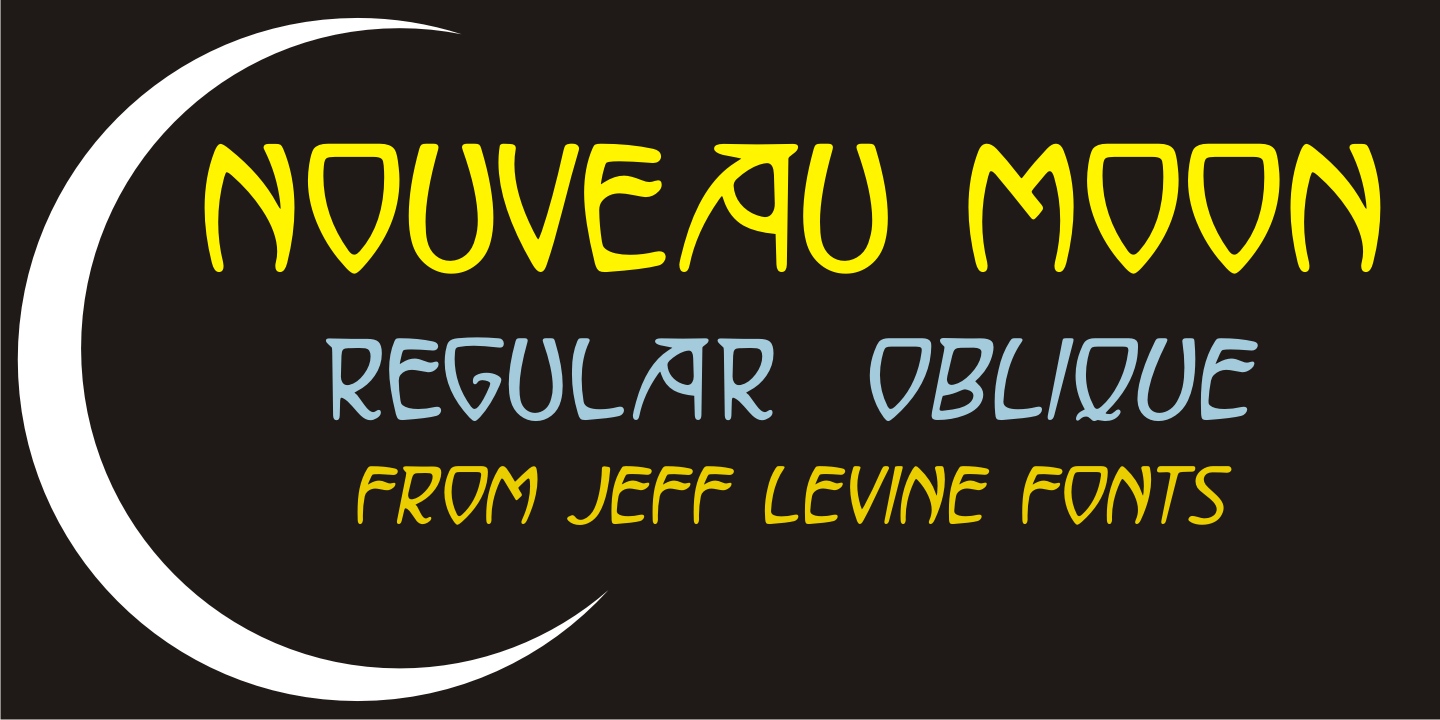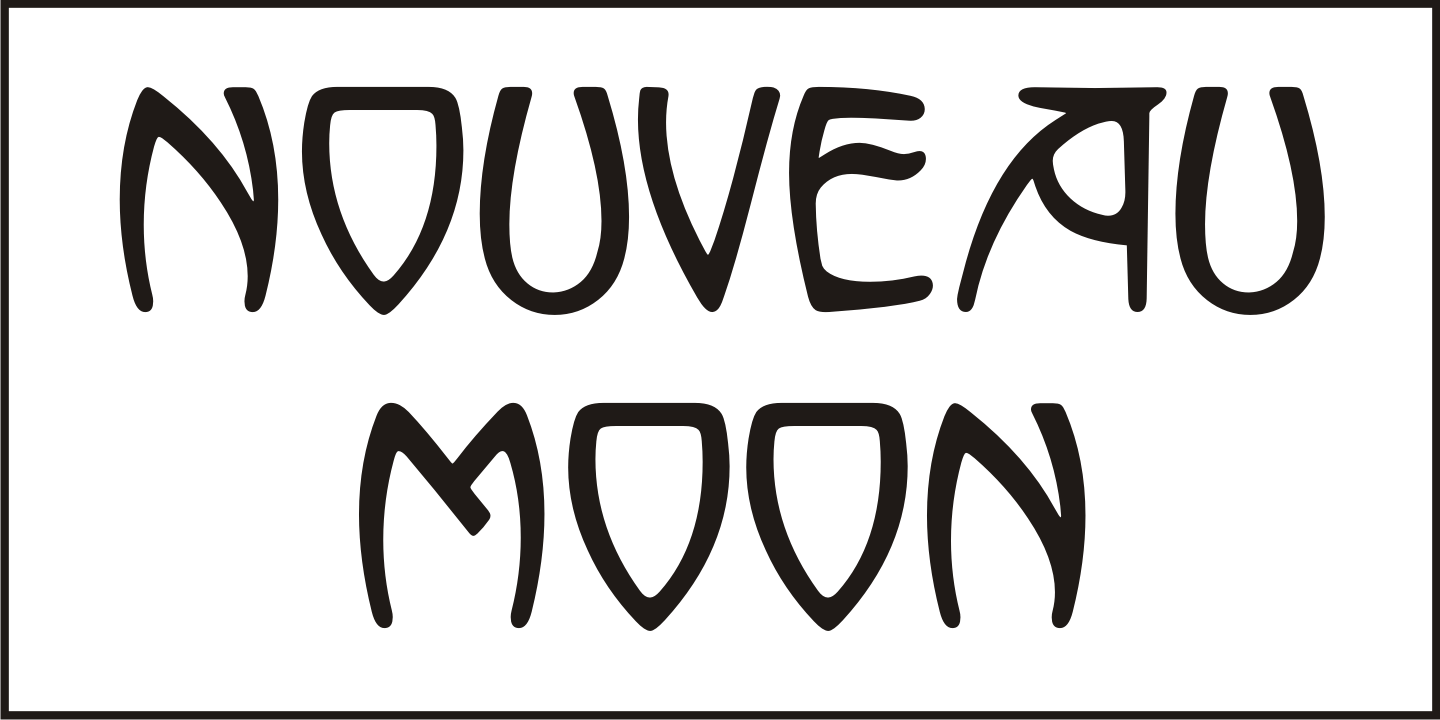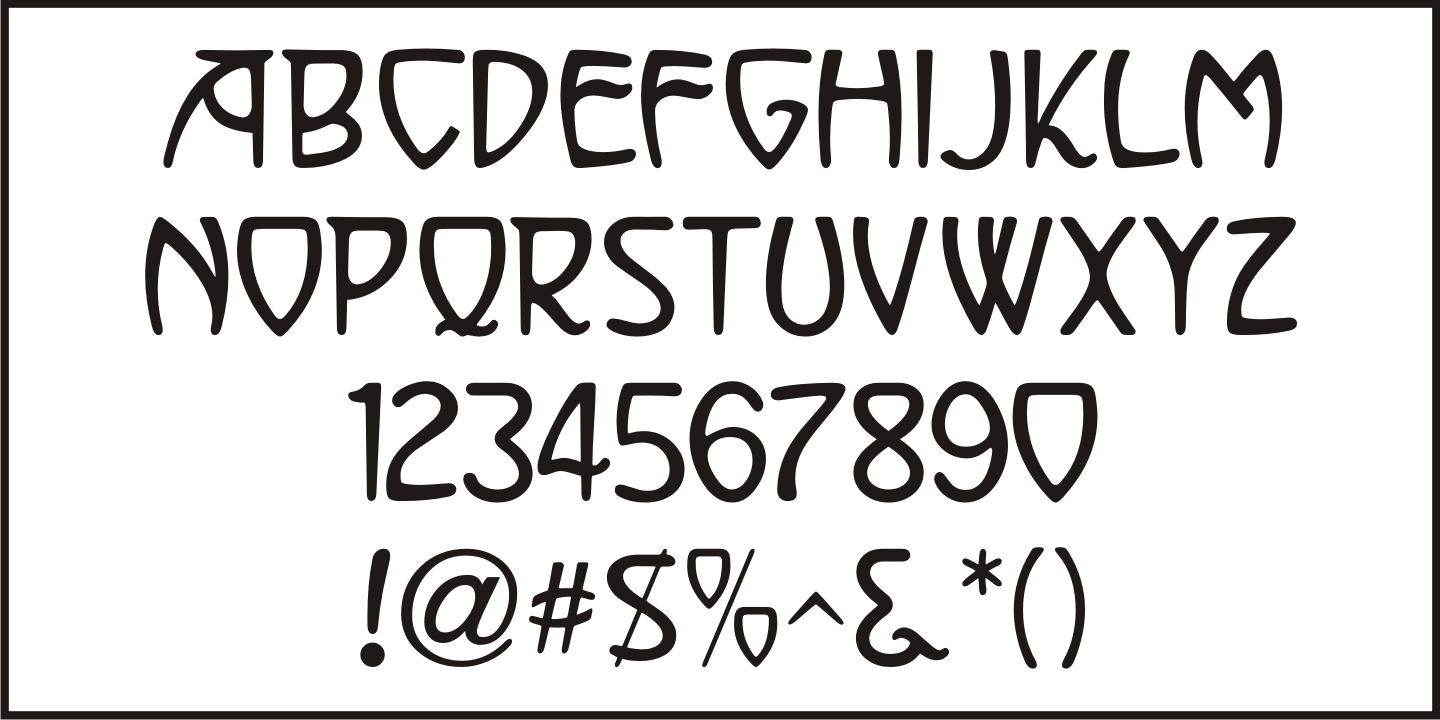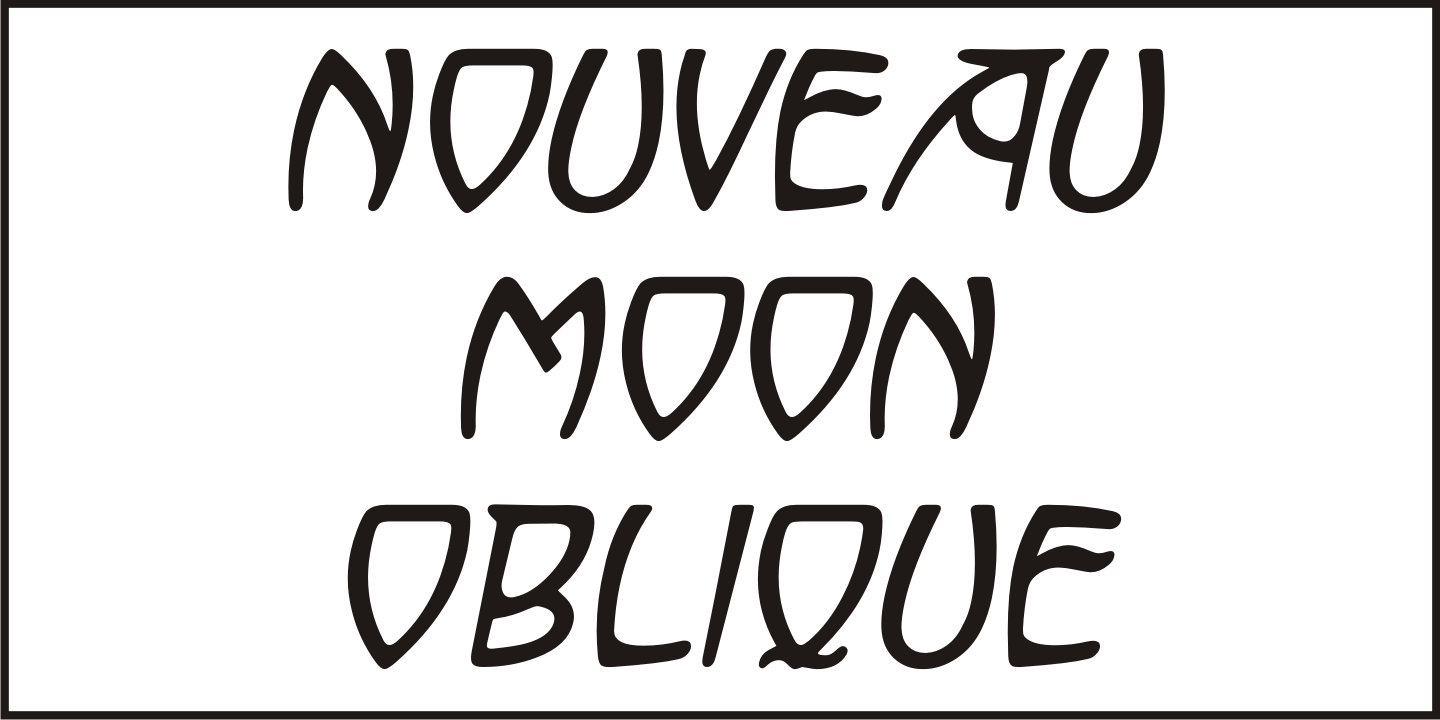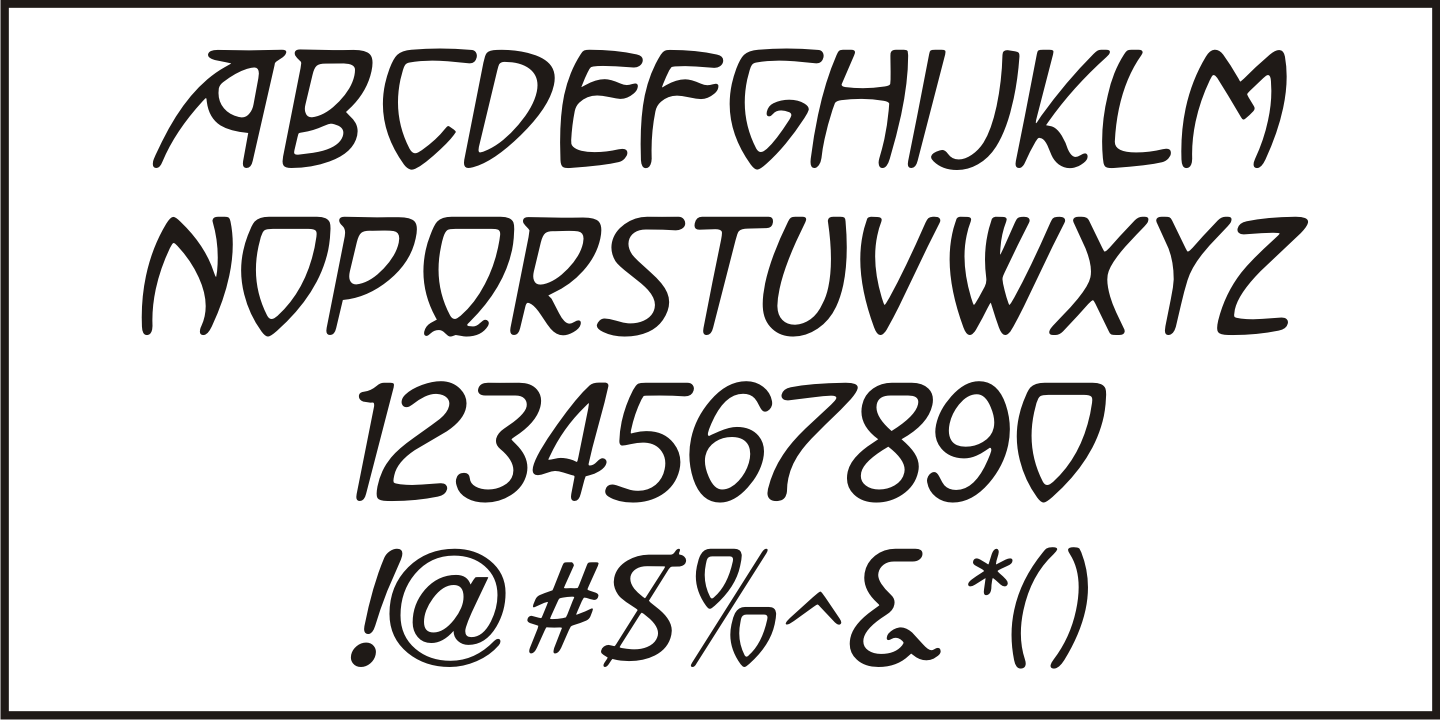
Nouveau Moon
The 1911 sheet music for 'A Hot Time In Monkeytown" is an example of Art Nouveau hand lettering that could not be ignored as a typographic design source.
The end result is Nouveau Moon JNL, which is available in both regular and oblique versions.
Nouveau Moon JNL Regular by Jeff Levine Fonts